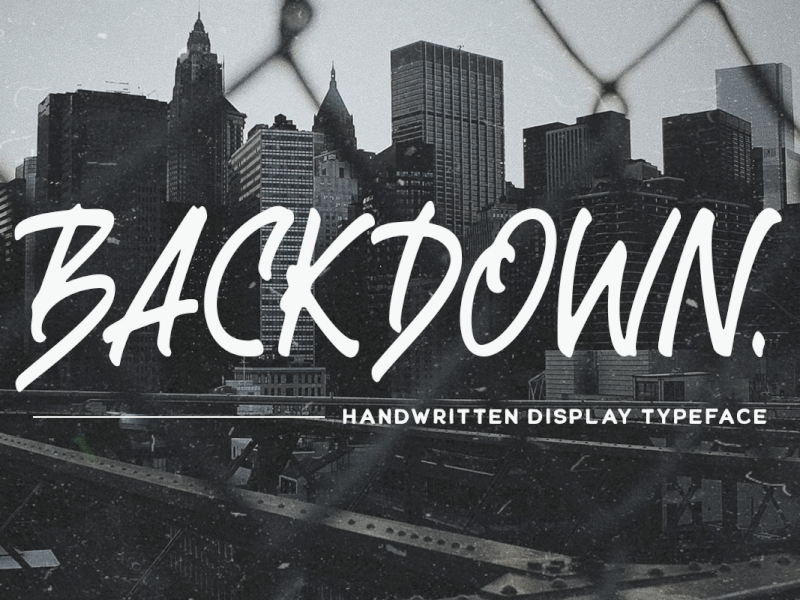
Backdown - Handwritten Display Typeface
Introducing, Backdown– a handwritten display typeface. This type of font perfectly made to be applied especially in logo, and the other various formal forms such as invitations, labels, logos, magazines, books, greeting / wedding cards, packaging, fashion, make up, stationery, novels, labels or any type of advertising purpose.
uppercase & lowercase
numbers and punctuation
multilingual
alternates and ligatures